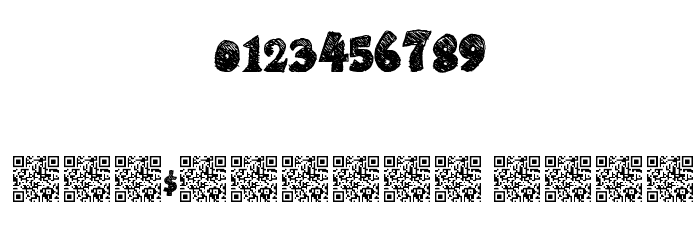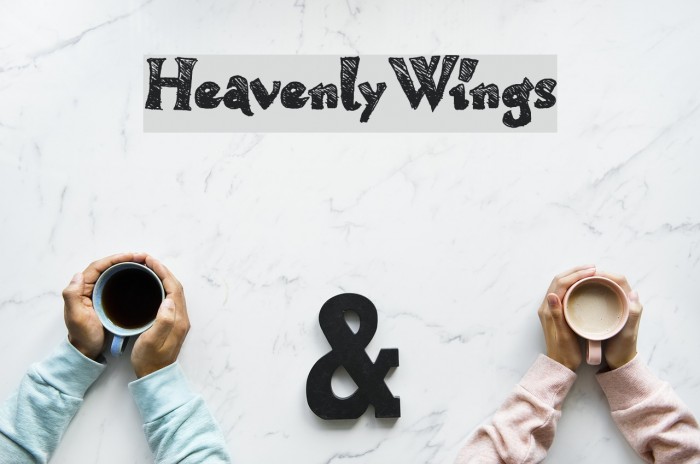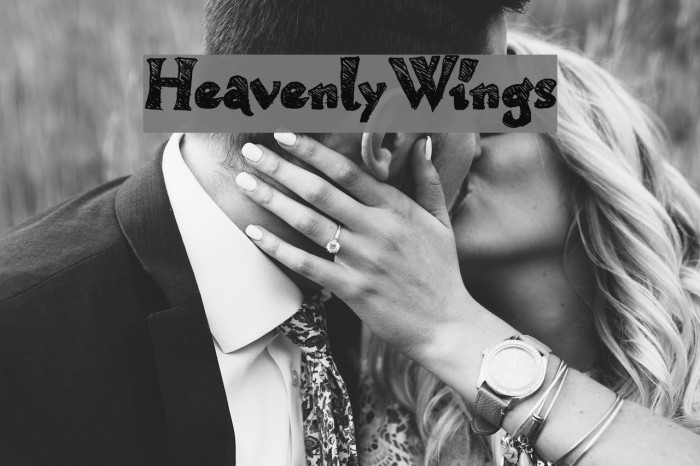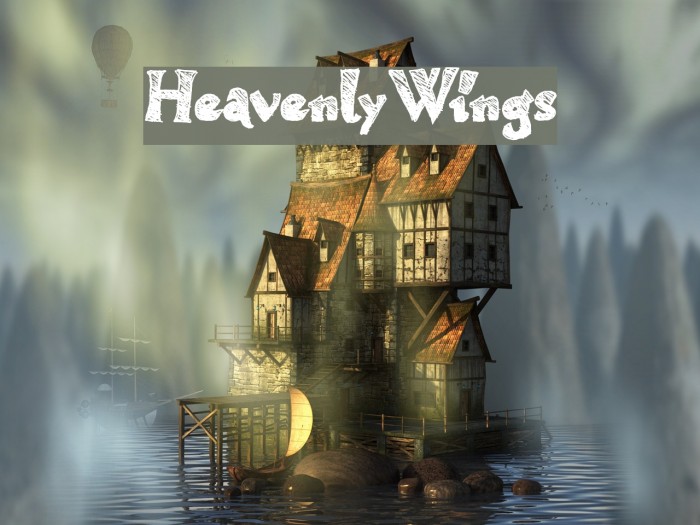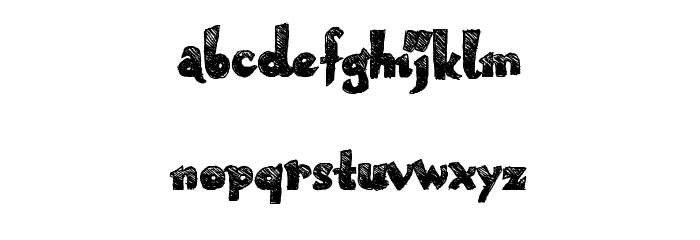
HeavenlyWings Font
This font features a bold, textured style that gives each character a unique, hand-drawn appearance. The letters are slightly irregular, adding a playful and artistic touch. The uppercase and lowercase characters maintain a consistent design, with a rough, sketch-like texture that suggests a sense of movement and creativity. The numbers and special characters follow the same design principles, ensuring a cohesive look across all elements. This font is ideal for projects that require a personal, artistic flair.
A bold, textured font with a hand-drawn, artistic style.
• Proposed Projects: Ideal for artistic projects, creative branding, posters, and invitations that require a personal touch.
• Category: Decorative/Display
• Bold: Yes
• Italic: No
• Weight: Bold
• Width: Normal
• Character Spacing: Normal
• Contrast: Medium
• Overall Style: Artistic, Playful
• Use Case: Headlines, Logos, Posters